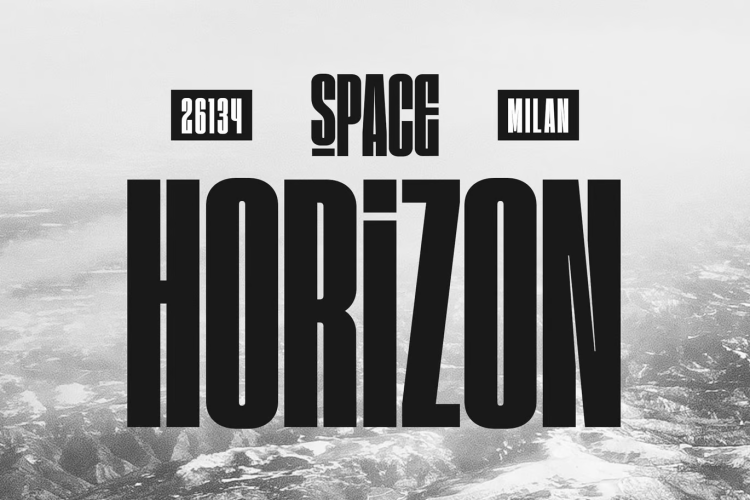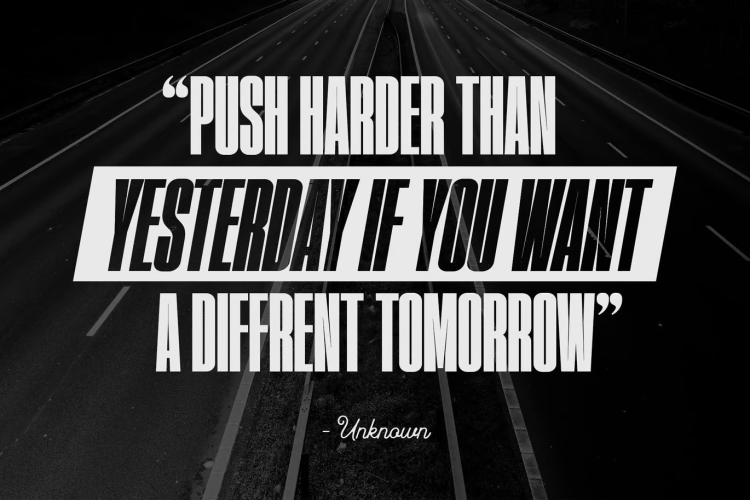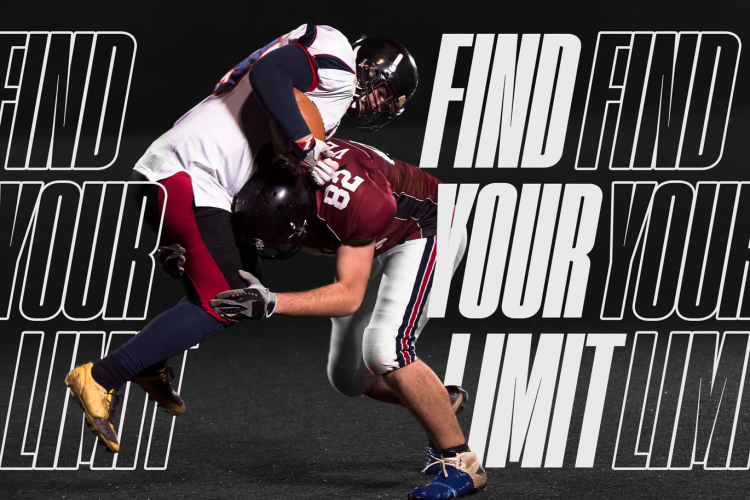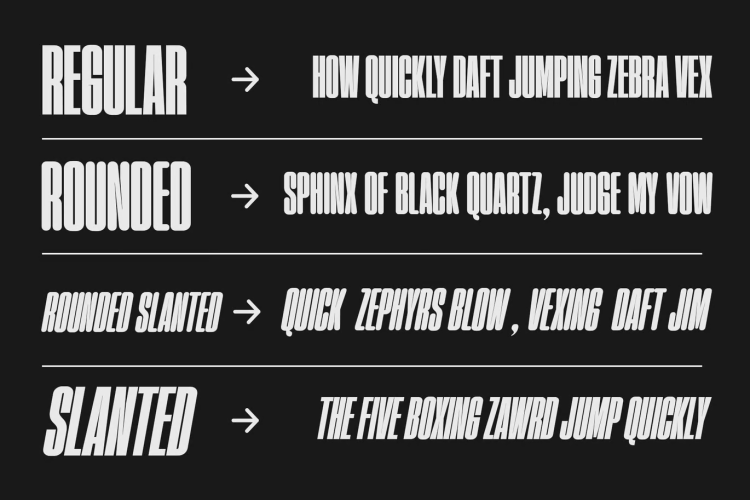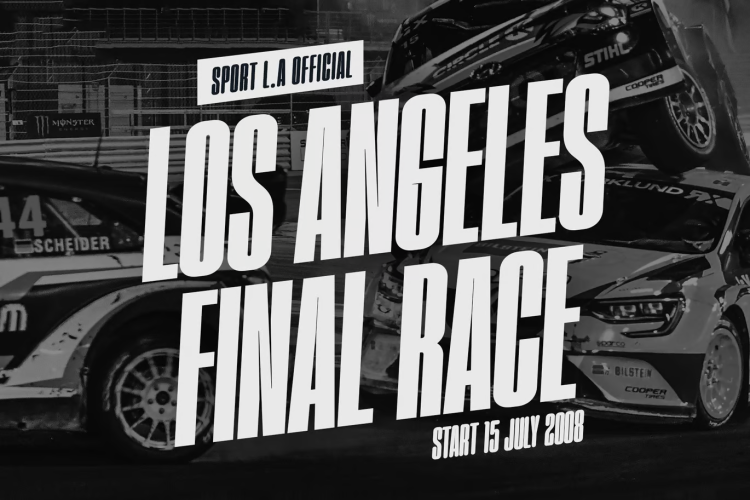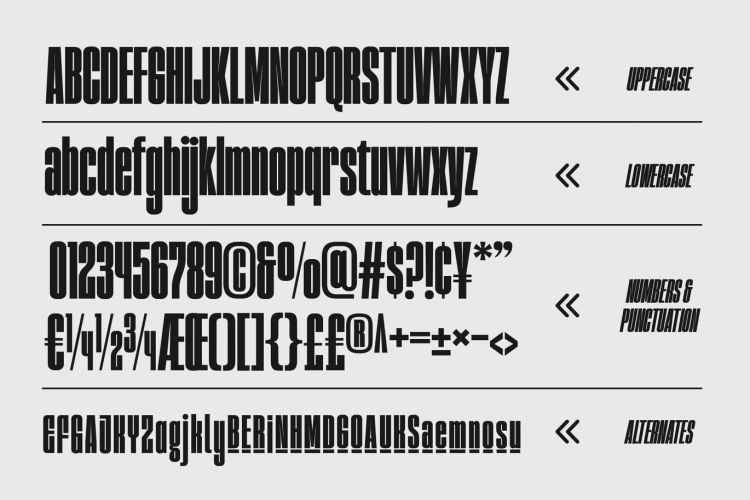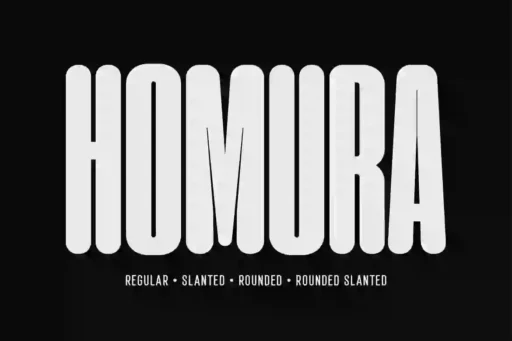
Homura Font
Homura is a display font by Ramzehhh which is a sans-serif and is derived from newspaper headlines, as well as modern typography. It comes in four styles: There are four different types of serifs including regular, rounded, slanted and slanted rounded. This font is a condensed, bold and elegant font with tight design, ink trap in some sharp corners and looks fancy, fun and minimal. uitable for different designs.
Due to its short and stylish design, Homura is highly suitable for forming catchy logos, titles and slogans. The above mentioned features make Homura suitable for any project. This font is suitable for big size uses or for headings, titles, logos, short phrases, stickers, labels and posters.
Uppercase & lowercase
Numbers & punctuation
Symbols & multilingual
Stylistic alternates
Homura Font is a Sans Serif Fonts font that brings a professional and versatile look to your projects. Homura is a display font by Ramzehhh which is a sans-serif and is derived from newspaper headlines, as well as modern typography.